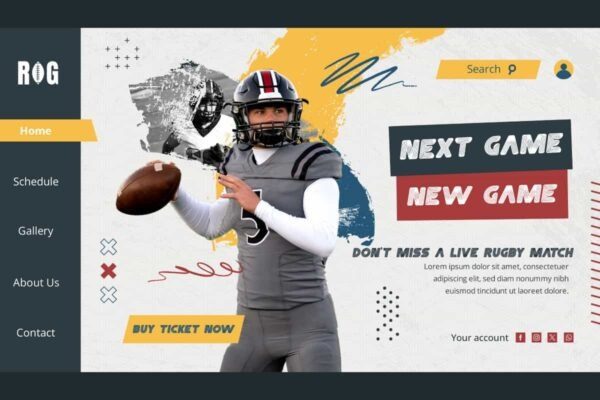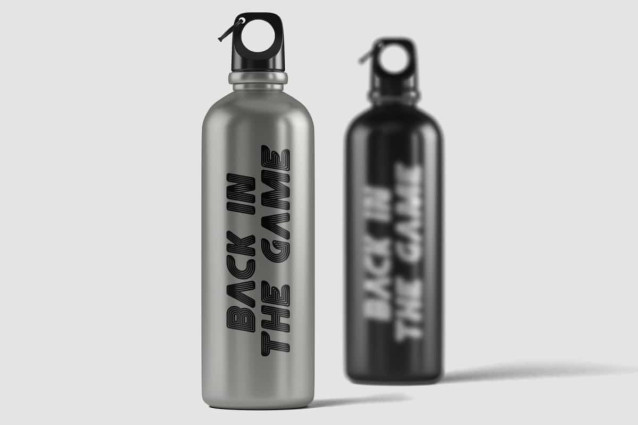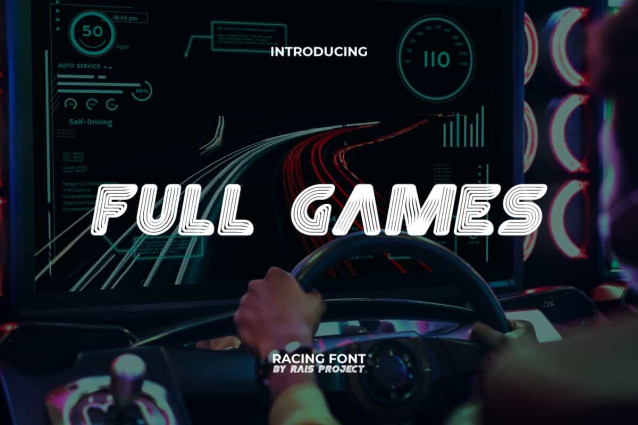
Full Games Font
Full Games Font is a playful sporty racing font with creative touch created by RaisProject. The lines within the letters give this font a unique and fun character to add to your design. It will be good for poster, signage, stationery, custom design, product packaging, quotes, poster, brand image, advertisement, invitation, label, marketing material, website page, and more!
Full Games Font includes a full set of ALL CAPS for Uppercase and Lowercase Letters, Numerals, and large range of Punctuation. This modern font will be suitable for various industries, such as sports, automotive, fashion, game, barber shop, cafe, event or festival, photography, printing, publishing, etc.